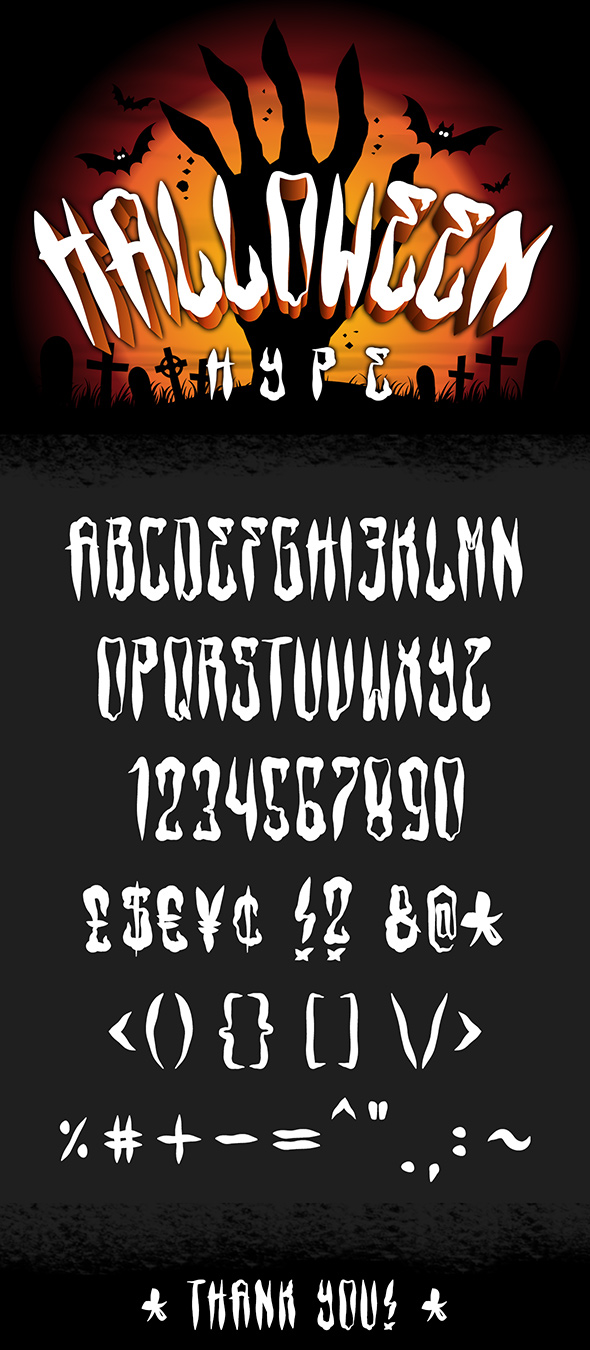
Hello, Halloween Hype is just around the corner!
This typeface is a handmade like character set including uppercase letters, numbers and several common symbols.
You can use the font on a wide range of items like posters, flyers, logo design, packaging, branding, book covers, quotes, magazines etc.